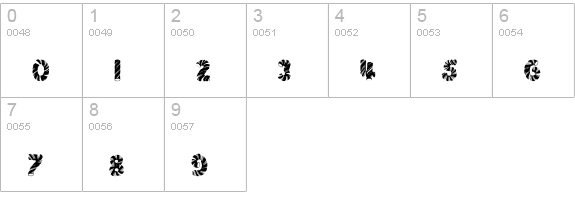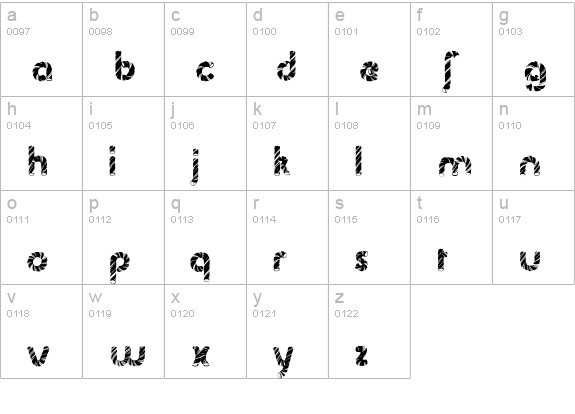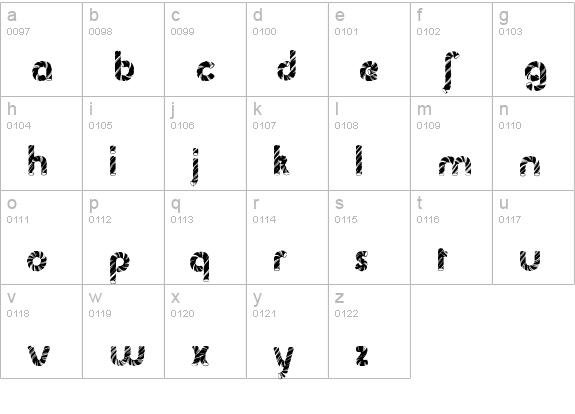
Candylicious Font Details
Candylicious font is a delightful and whimsical typeface that will add a sugary touch to any design project. With its charming curves and playful letterforms, this font captures the essence of all things sweet and delicious. Whether you're creating a logo for a candy shop, designing invitations for a birthday party, or just want to add a touch of whimsy to your personal projects, Candylicious font is the perfect choice. Its unique and eye-catching design will instantly grab attention and bring a smile to anyone's face. But what makes Candylicious font even sweeter is that it is completely free! That's right, you can download this delightful font without spending a penny. It's freely available to download at FontsMarket.com, a trusted source for high-quality fonts. So go ahead and indulge in the sweetness of Candylicious font. Let your creativity run wild as you create delicious designs that are sure to leave a lasting impression. Whether you're a professional designer or just someone who loves to play with typography, Candylicious font is a must-have in your font collection. Download it today and let the sweetness begin!